We absolutely adore clean fonts and cursive fonts, so we thought why not make a catalog of clean cursive fonts!
These fonts in our list comprise of different cursive and minimal font styles that can suit different occasions, from elegant to casual we have it all for you! The best part is, they’re free and easily accessible with just a couple of clicks! What are you waiting for? Check out our list below!
Bearline Clean Cursive Font
This monoline cursive font just screams minimal, sophisticated, and casual. If you’re looking for something casual with a touch of elegance, this minimal cursive font is a great choice for you! This will surely add a touch of dainty to our designs and projects. Download this font here.
Beauty Hearts Minimal Cursive Font
The Beauty Hearts font is perfect for designs that call for a clean cursive look with a warm homey vibe. The font features a brush font without any texture giving it a clean polished appearance! This font is definitely worth adding to your font library. Click here to download and try it!
Rubicela Clean Elegant Cursive Font
This is one of our favorite clean elegant fonts! The Rubicela font presents a pristine formal vibe with its narrow spacing, play on weights, and its subtle curves. This font is truly something you can use on both formal and cozy designs. Click here to download this font.
Treated Good Minimal Cursive Font
Looking for a modern simple cursive font? You should try this font! The Treated Good font, provides you with that uncomplicated font that just works. It’s thin, clean, cursive, and plays with the contrast of uppercase and lowercase letters that completes that contemporary look. The font also has that handwriting font vibe but with a minimal take, keeping it soft, untextured, and just simply clean. This is surely a great font to add to your list! To download this font, click here.
Barokah Signature Clean Minimal Font
The Barokah Signature font mimics some elements of a person’s signature through its natural curves, consistently thin lines, and the contrast of upper and lower case characters. But what we love about this font is how it fabricates that chic minimal look with a touch of comfort. If you want to try out this font, click here.
Reading Cursive Clean Modern Font
Looking for a Cursive clean modern font that is free for commercial use? Then the Reading font is perfect for you! This font showcases that fancy handwriting signature script font with that clean modern touch. This is definitely a great font to add to your list as you can use it for both casual and formal designs. Click here to get this font!
The Only Exception Cursive Clean Font
This modern clean font just sends us that cheerful comfortable vibe! With this font’s wide cursive letters and rounded edges, The Only Exception Cursive Clean font is the one to choose for more casual and laidback designs. Try out this font here!
Malira Minimal Cursive Font
What we love about the Malira Font is how it just radiates that simple and clean font style with a touch of dainty! Truly this font will work wonders in adding a personal touch to your designs and creations. Try out this font here!
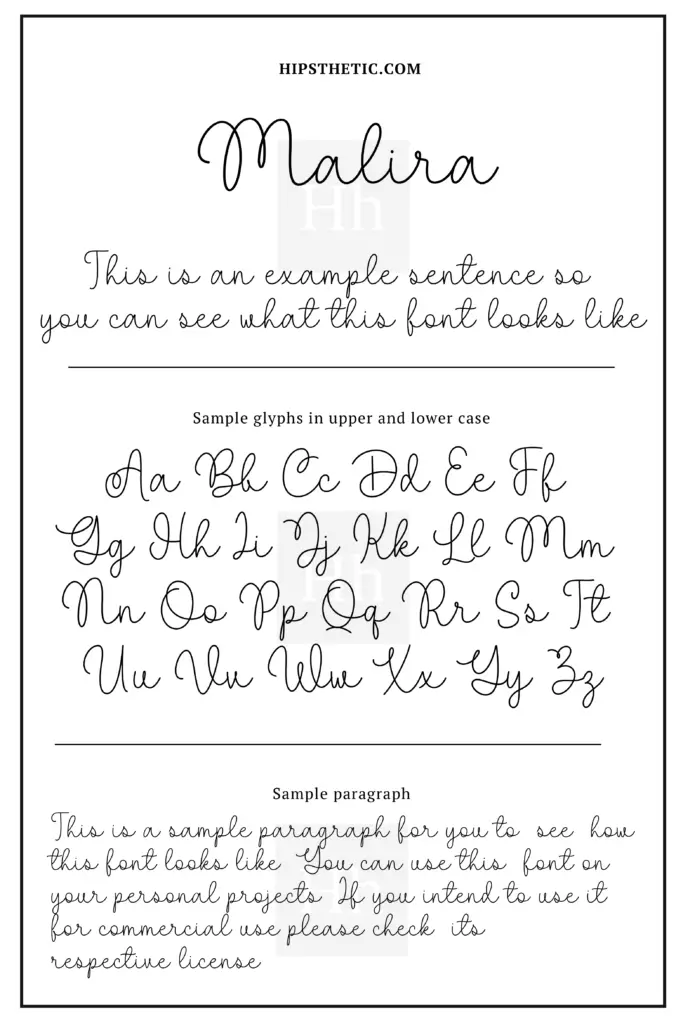
Cantilena Thin Clean Font
The Cantilena cursive thin clean font showcases dainty rounded cursive glyphs with a narrow spacing which creates that warm, welcoming atmosphere. If your designs are looking for that type of vibe, this font is for you. Download this font here.
Vanillate Cursive Minimal Font
If you’re looking for a cursive clean bold font, this one is perfect! The Vanillate Font comes in a hefty bold weight while keeping it polished and classy. This font will surely be perfect as an accent or even a heading font! Download and try this font here!
Learning Curve Clean Font
Want something that’s based on real handwriting? The Learning Curve is exactly just that! The font is based on the designer’s handwriting himself! This clean typeface is an ideal font to use for something presentable yet casual! Try out this font here!